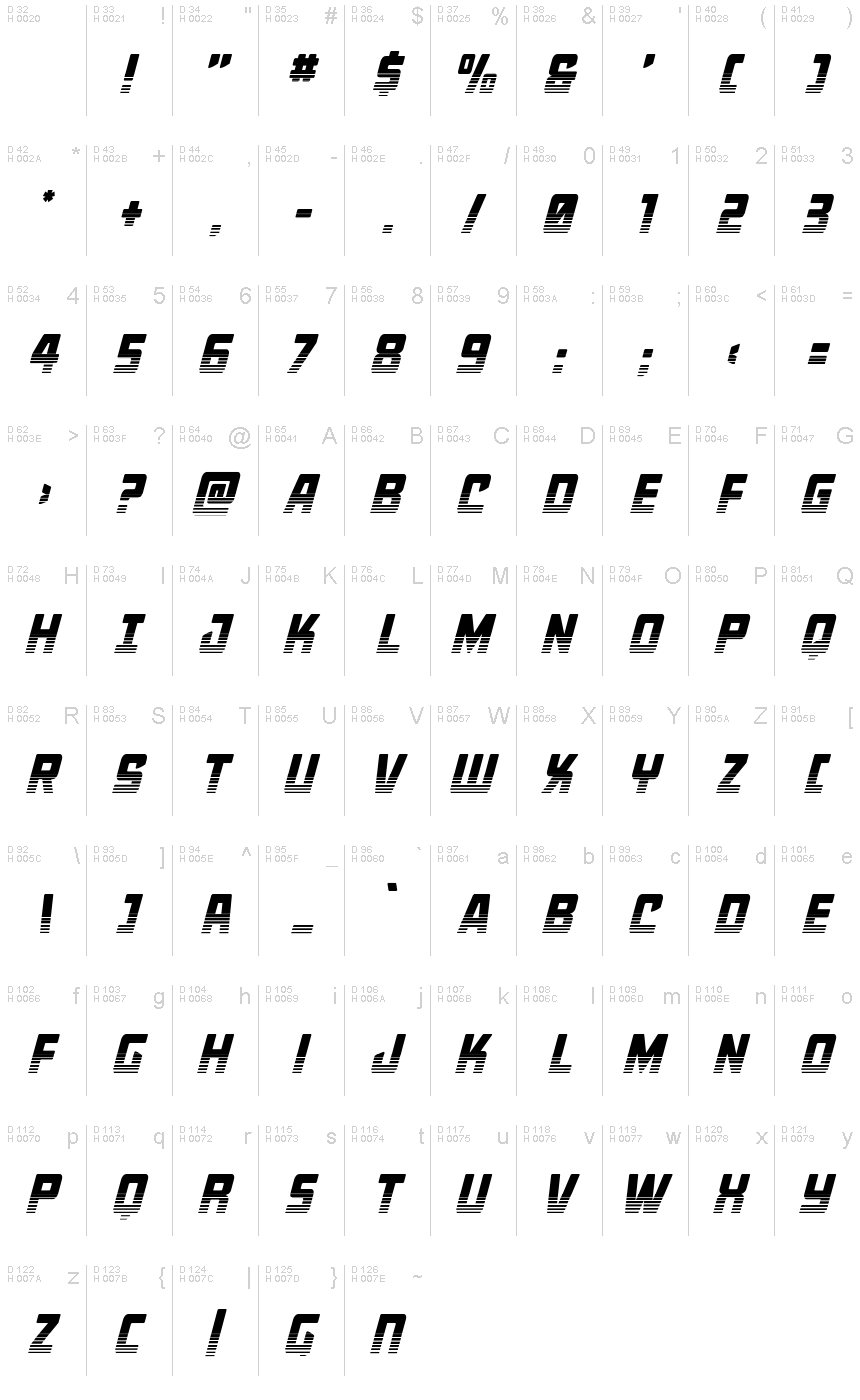
Quicky NicK Twotone
Quicky Nick is a striking display font designed by Iconian Fonts, blending techno-inspired aesthetics with a modern, eye-catching flair. Its sharp, angular letterforms and bold, geometric shapes create a bold, futuristic impression, evoking a sense of technological sophistication and innovation. The font's unique character style and seamless two-tone effect add depth and visual interest, making it a captivating choice for a wide range of applications.
Quicky Nick's versatility shines through its versatile design, making it a suitable choice for various projects, from cutting-edge branding and digital interfaces to impactful typography in print and advertising. Its bold, attention-grabbing presence makes it an excellent option for headlines, logos, and other display elements, where it can help convey a sense of technological prowess, modernity, and a forward-thinking aesthetic.